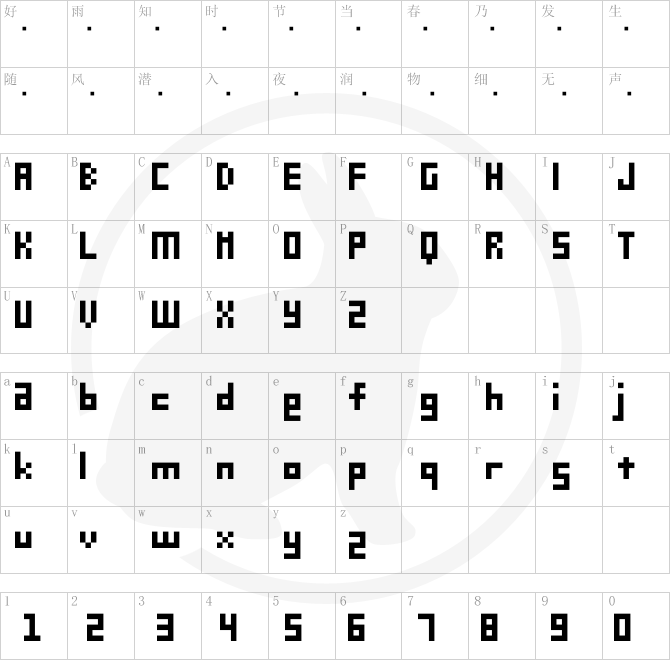
- Font Name:D3 Petitbitmapism
D3-Petitbitmapism.ttf is a very beautiful artistic font, D3-Petitbitmapism.ttf is widely used in the design and printing of various books and pictures,D3-Petitbitmapism.ttf has a strong visual impact,D3-Petitbitmapism.ttf is a commonly used font in newspapers, magazines and books, and is used in posters, e-commerce Poster design, store design, logo design, font design and other fields.D3-Petitbitmapism.